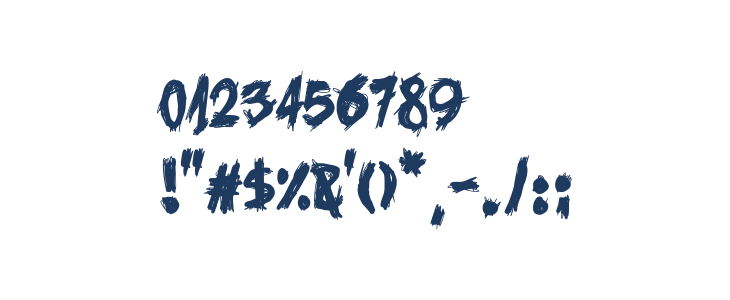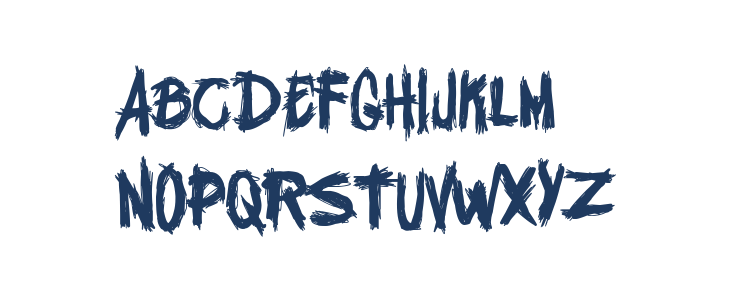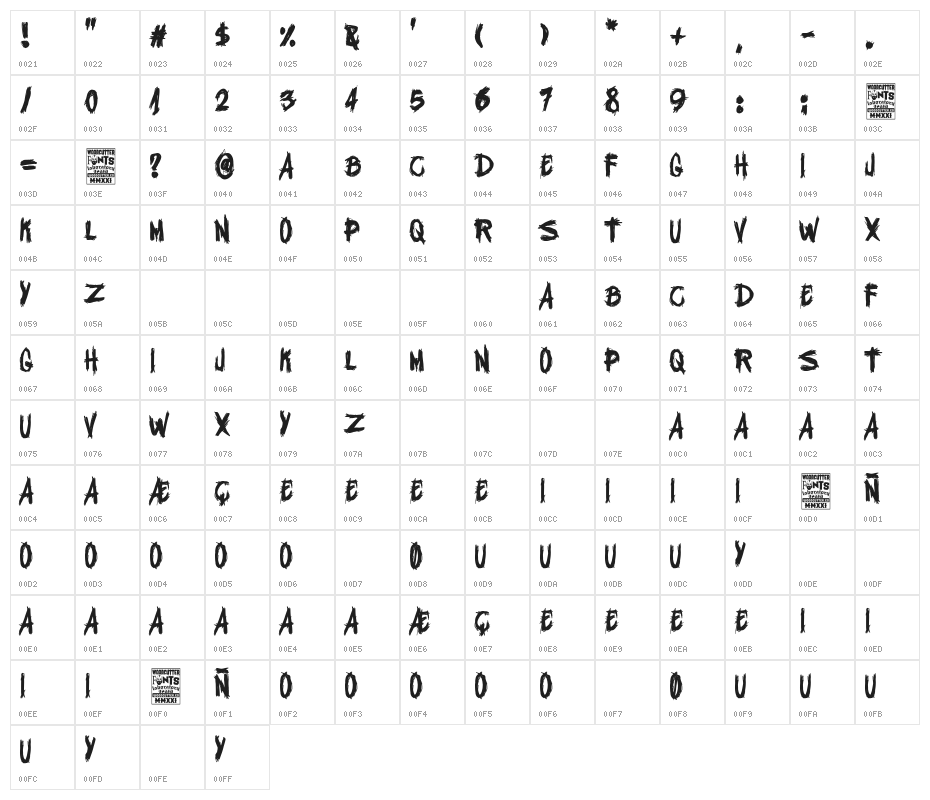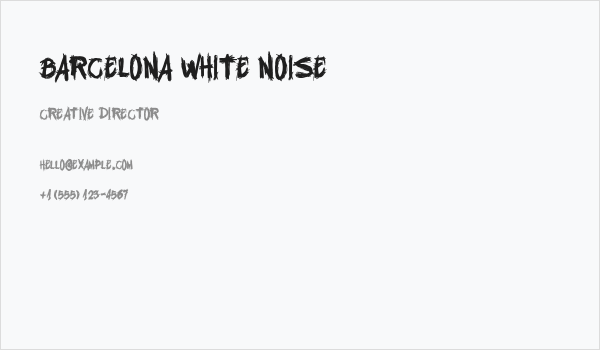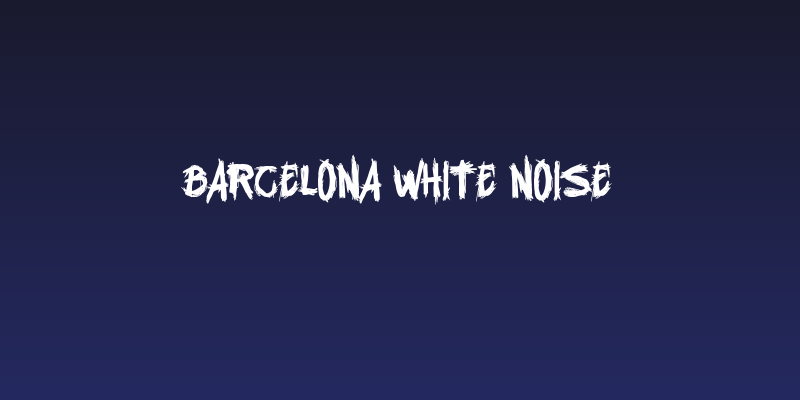
Barcelona White Noise Font
Barcelona White Noise Description
A bold, chaotic display font with rough, jagged edges and a hand-drawn, brushstroke appearance. The characters are irregular, giving a sense of energy and movement, suitable for attention-grabbing designs.
| Overall Style | Decorative, Grunge, Energetic |
| Use Case | Headlines, Posters, Logos, Event Promotions |
| Proposed Projects | Horror movie posters, music album covers, extreme sports branding, Halloween event flyers, graffiti-inspired artwork. |